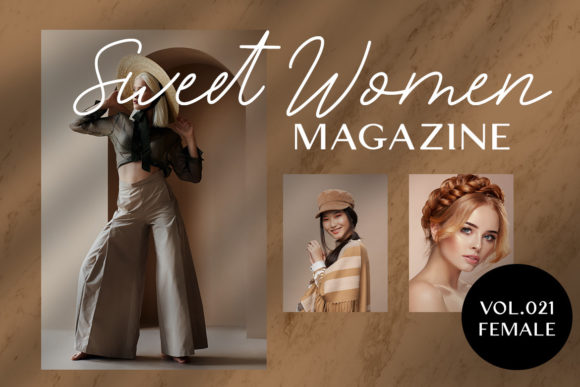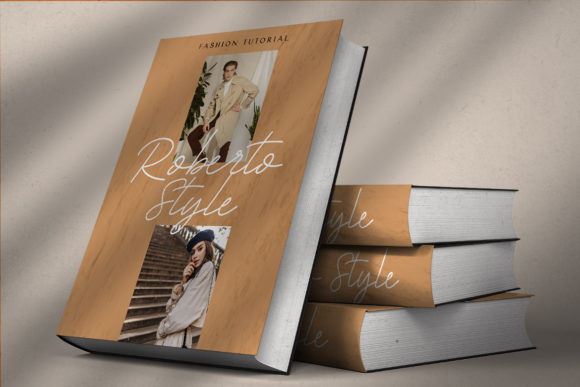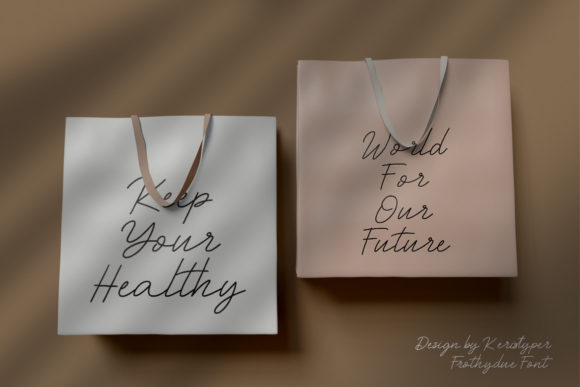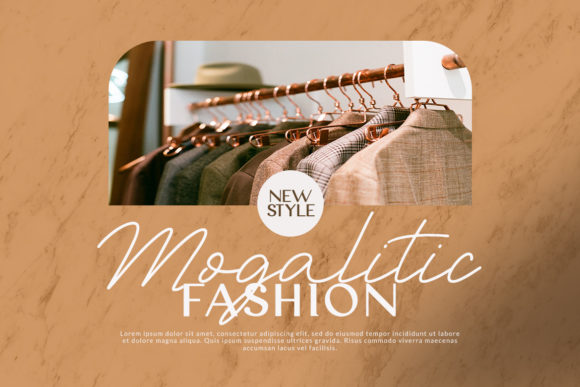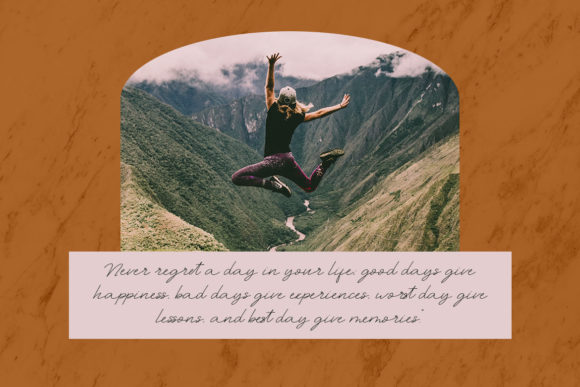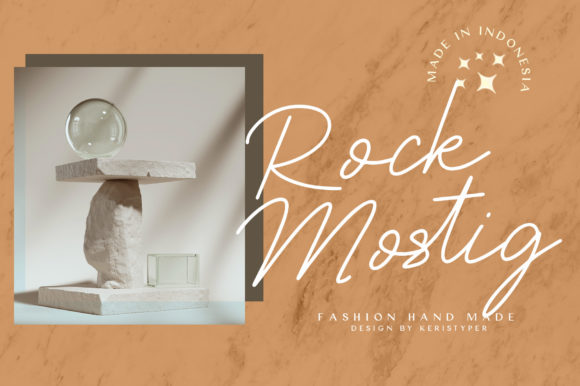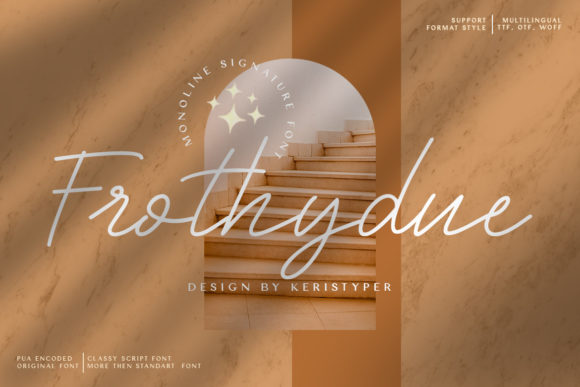
Frothydue Font: Add a Personalized Touch to Your Designs
In the world of typography, fonts play a crucial role in conveying the tone and personality of a design. For crafters and designers looking to add a touch of warmth and personality to their creations, Frothydue font is an excellent choice. This beautifully crafted script typeface is designed to bring a natural feel to various designs, making it perfect for cards, invitations, logos, and more.
The Charm of Frothydue Font
Frothydue font is a lovingly crafted script typeface that exudes a sense of elegance and sophistication. Its unique and flowing design makes it an ideal choice for designers who want to add a personal touch to their work. The font’s natural feel is perfect for creating designs that require a human touch, such as handmade cards, invitations, and craft projects.
Key Features of Frothydue Font
- Script Typeface: Frothydue font is a script typeface that features flowing connections between letters, creating a natural and elegant look.
- Personalized Touch: The font’s unique design makes it perfect for adding a personalized touch to various designs, such as cards, invitations, and logos.
- Natural Feel: Frothydue font has a natural feel that makes it suitable for designs that require a human touch, such as handmade crafts and DIY projects.
- Versatile: The font is versatile and can be used for various design projects, including cards, invitations, logos, and more.
Uses of Frothydue Font
Frothydue font is a versatile typeface that can be used for various design projects. Here are some of the most popular uses of this beautiful font:
- Cards: Frothydue font is perfect for creating handmade cards for special occasions, such as birthdays, weddings, and holidays.
- Invitations: The font’s elegant design makes it an excellent choice for creating invitations for weddings, parties, and other events.
- Logos: Frothydue font can be used to create unique and personalized logos for businesses, events, and organizations.
- Craft Projects: The font’s natural feel makes it suitable for various craft projects, such as scrapbooking, journaling, and mixed media art.
Tips for Using Frothydue Font
Here are some tips for using Frothydue font in your designs:
- Pair with Other Fonts: Frothydue font can be paired with other fonts to create a unique and interesting design.
- Experiment with Colors: The font’s natural feel makes it suitable for various color schemes, so feel free to experiment with different colors.
- Use for Headings: Frothydue font is perfect for headings and titles, adding a touch of elegance and sophistication to your designs.
Frothydue font is a beautiful script typeface that adds a natural feel to various designs. Its unique and flowing design makes it perfect for cards, invitations, logos, and other creations that require a personalized touch. With its versatility and elegance, Frothydue font is an excellent choice for designers and crafters looking to add a touch of warmth and personality to their work.
- What type of font is Frothydue? Frothydue font is a script typeface.